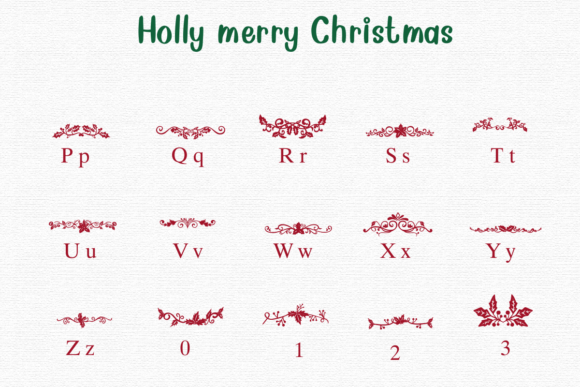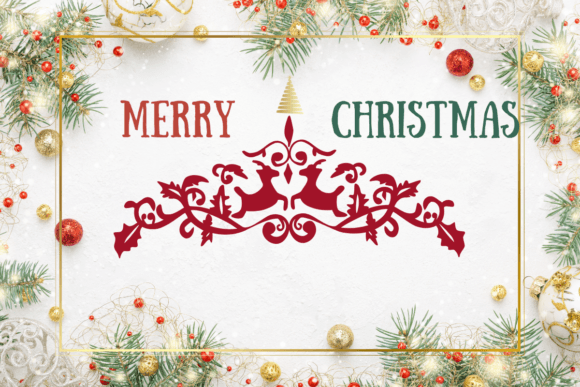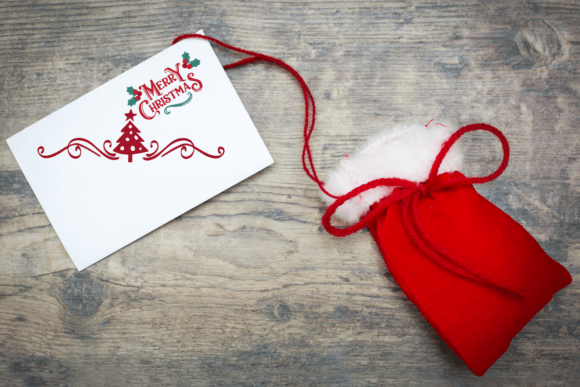
Holly Merry Christmas Font
Holly Merry Christmas is a dingbat font with a fun theme. This font can enhance your creative projects such as wedding invitations, DIY, crafts, decorations, logos, and many other creative ideas.